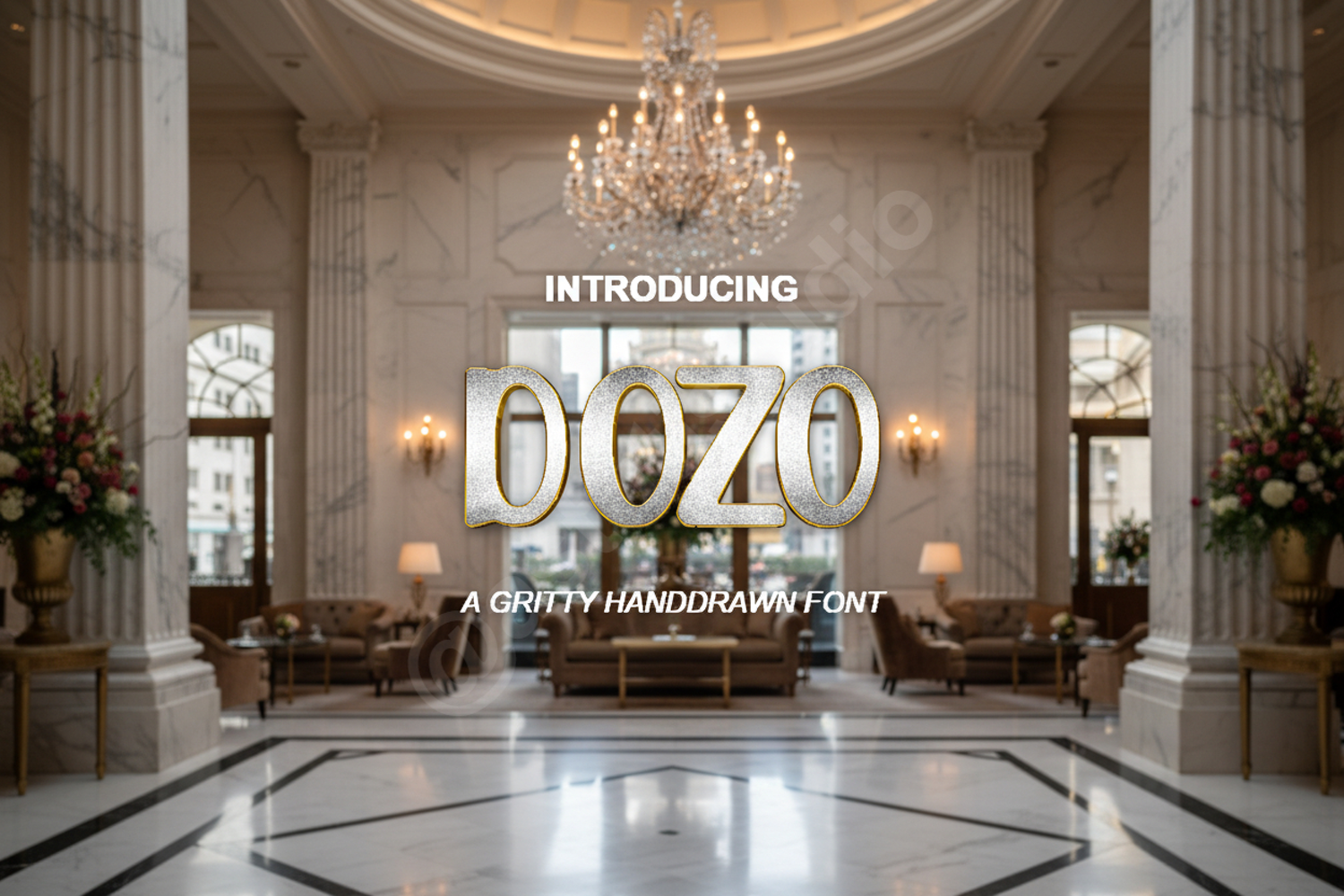
Dozo | Modern Geometric Sans Serif
Dozo
Dozo is a premium geometric sans serif font designed for creators who value precision and modern aesthetics. With its clean lines and balanced proportions, Dozo offers a sophisticated touch to any project, making it a versatile addition to your professional typography collection.
- Branding and Identity: Create memorable logos and high-end corporate stationery.
- Editorial Design: Perfect for sleek magazine layouts, headers, and body text.
- Digital Presence: Optimized for high readability across websites and mobile applications.
- Product Packaging: Elevate your packaging designs with a clean, premium feel.
- Social Media Graphics: Design striking, clear visuals for Instagram, Pinterest, and marketing campaigns.